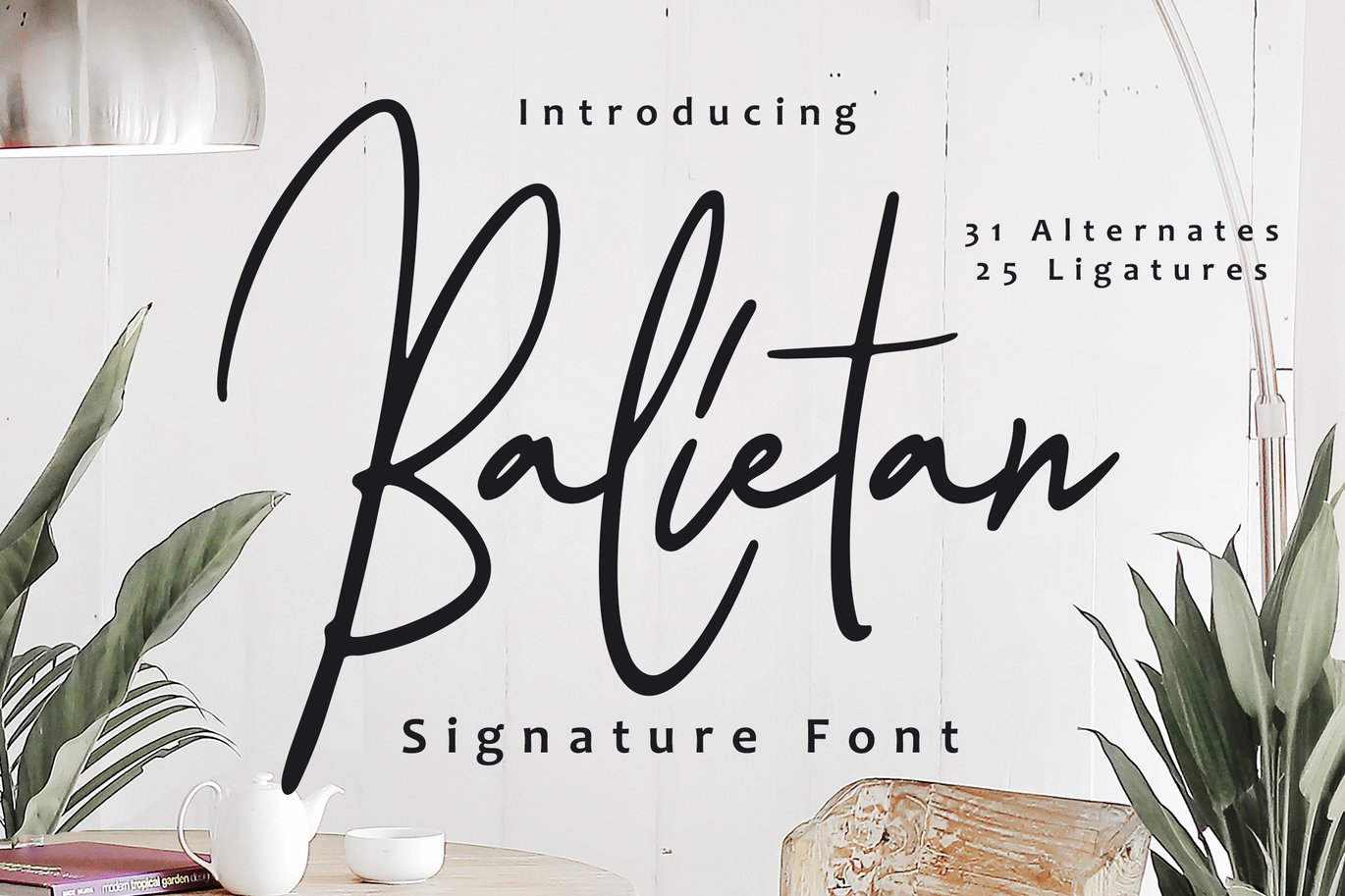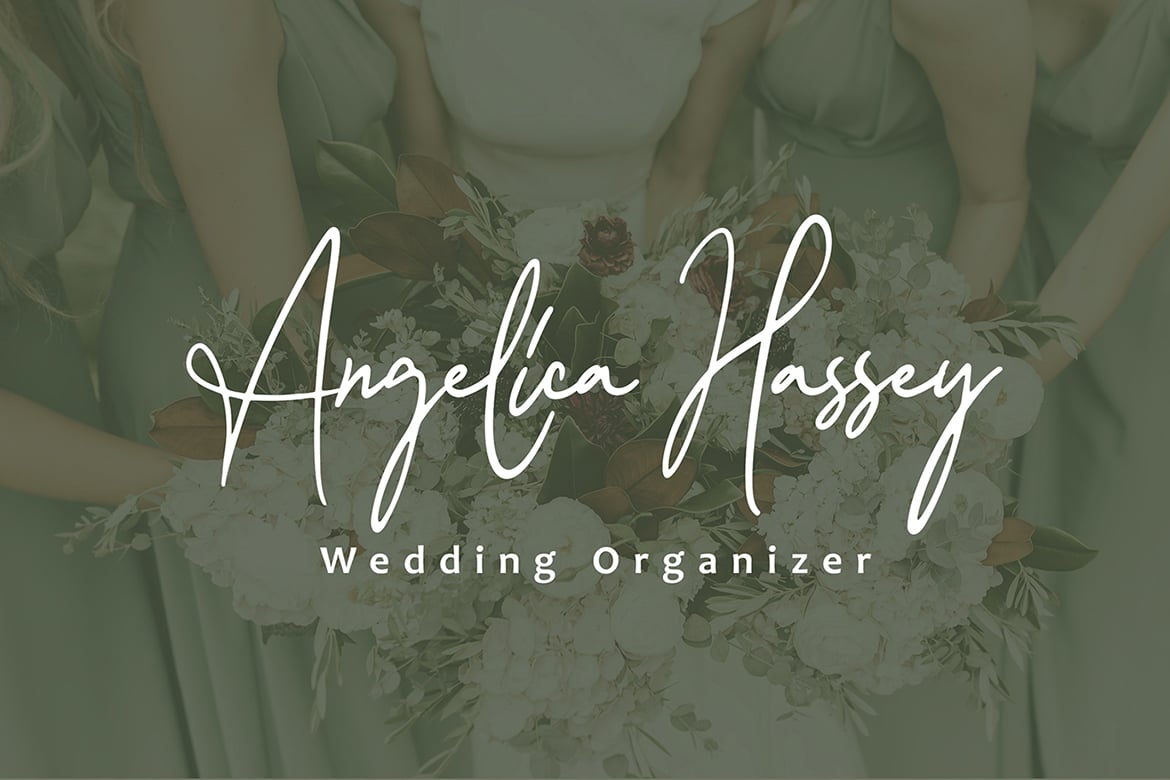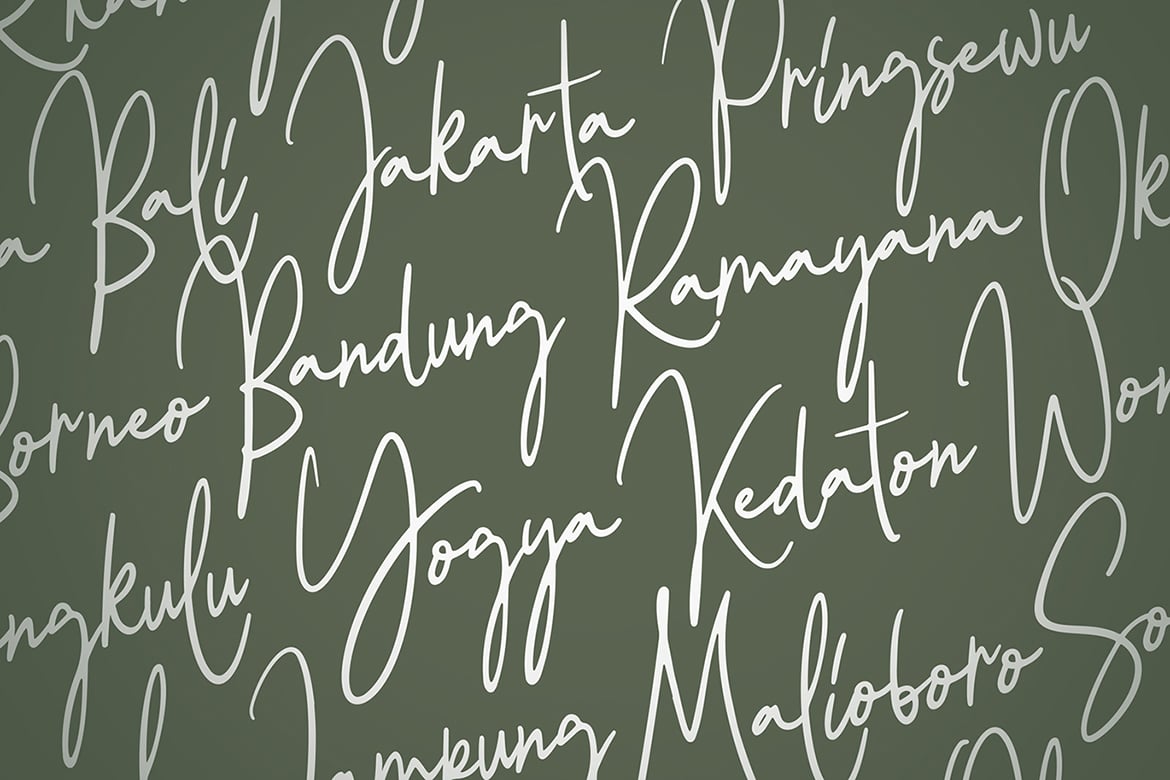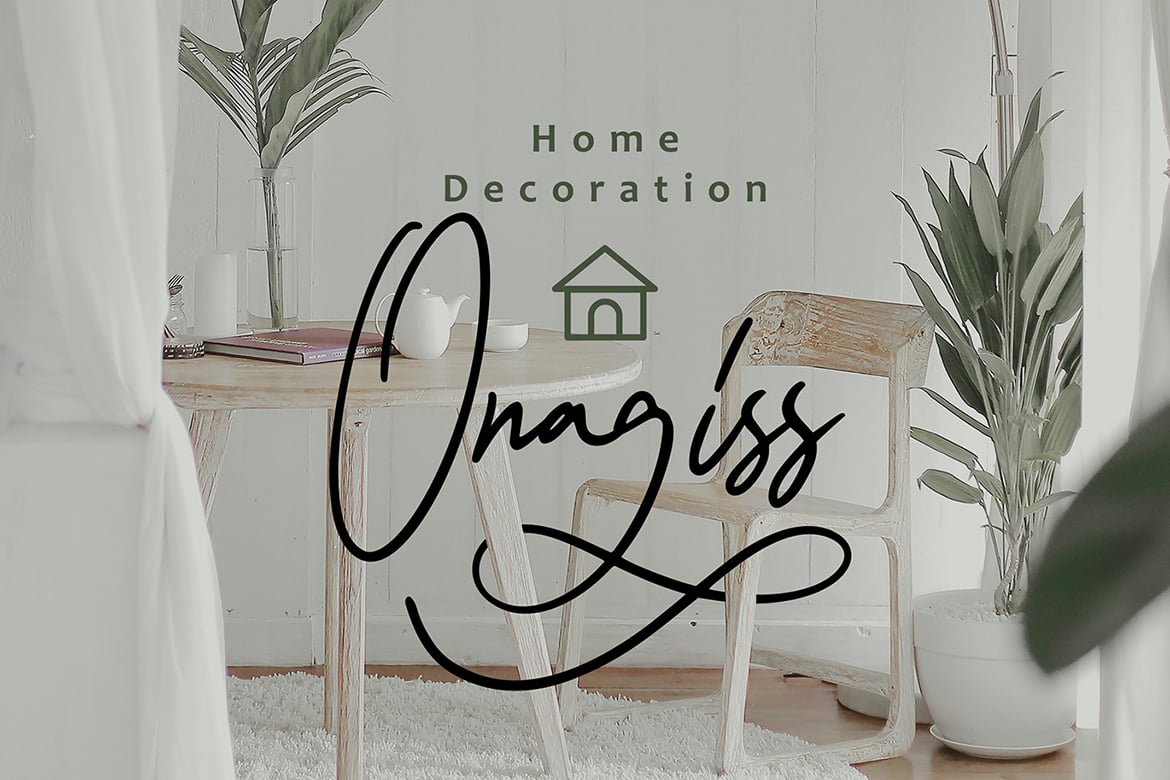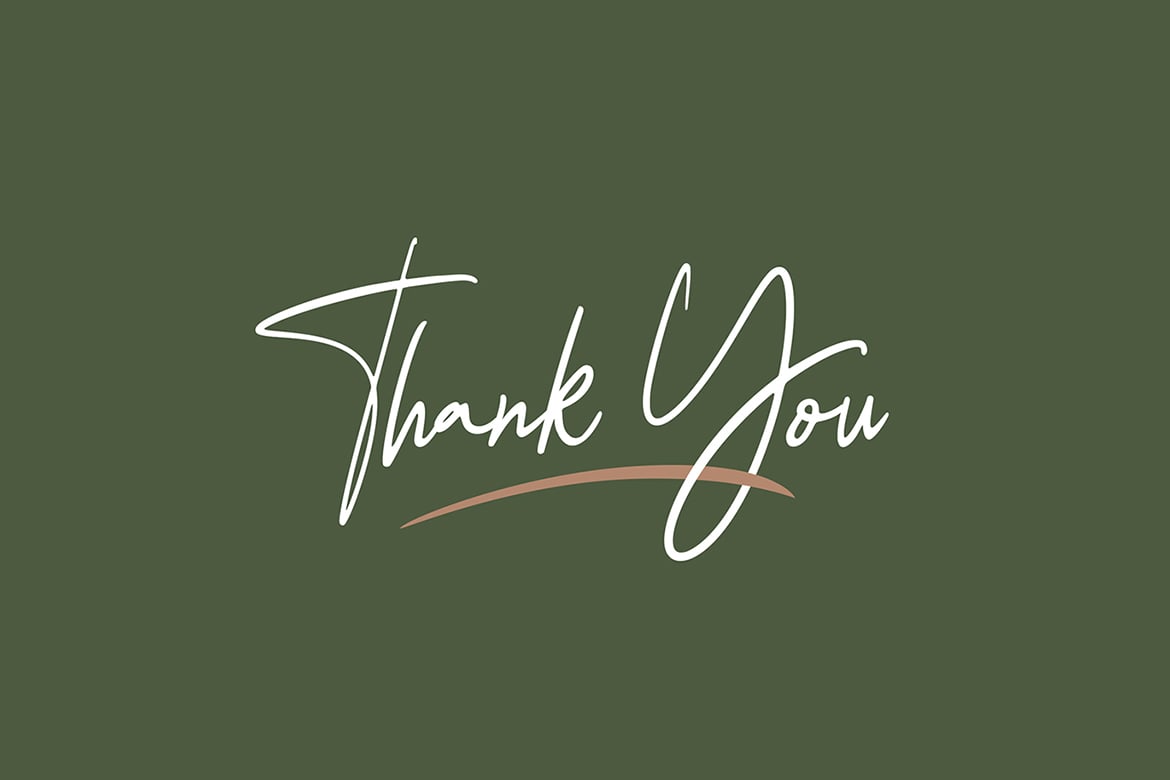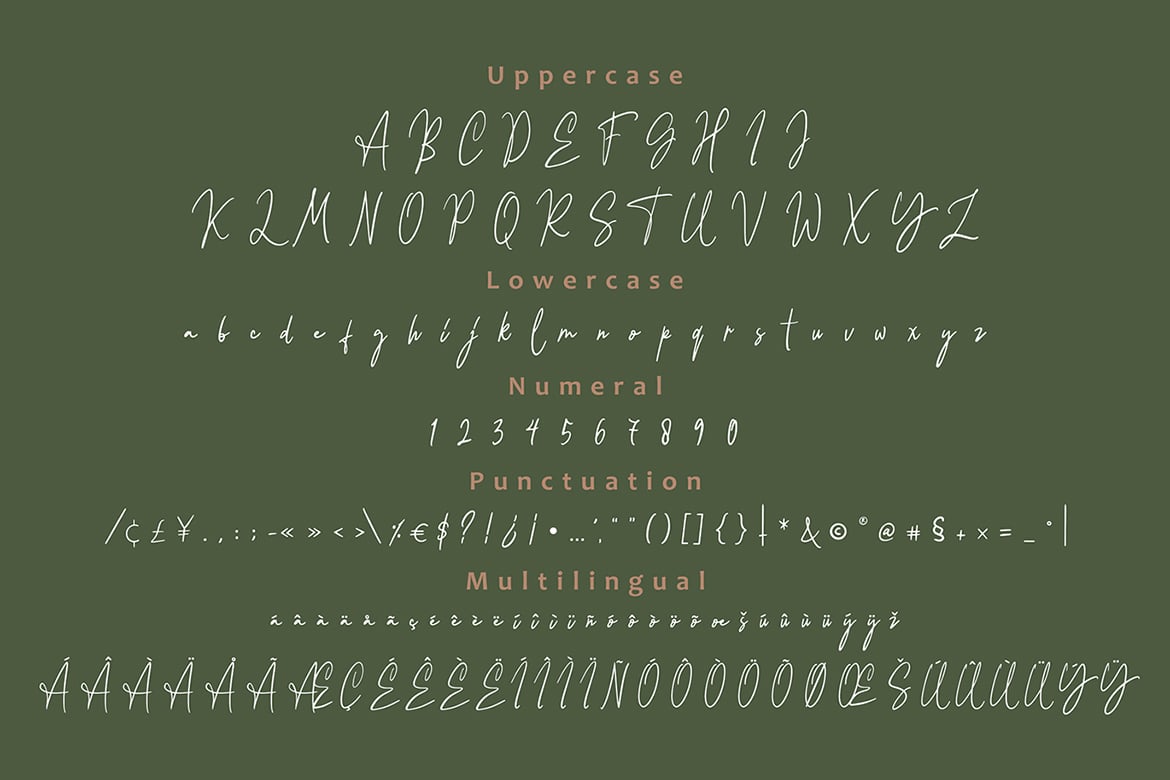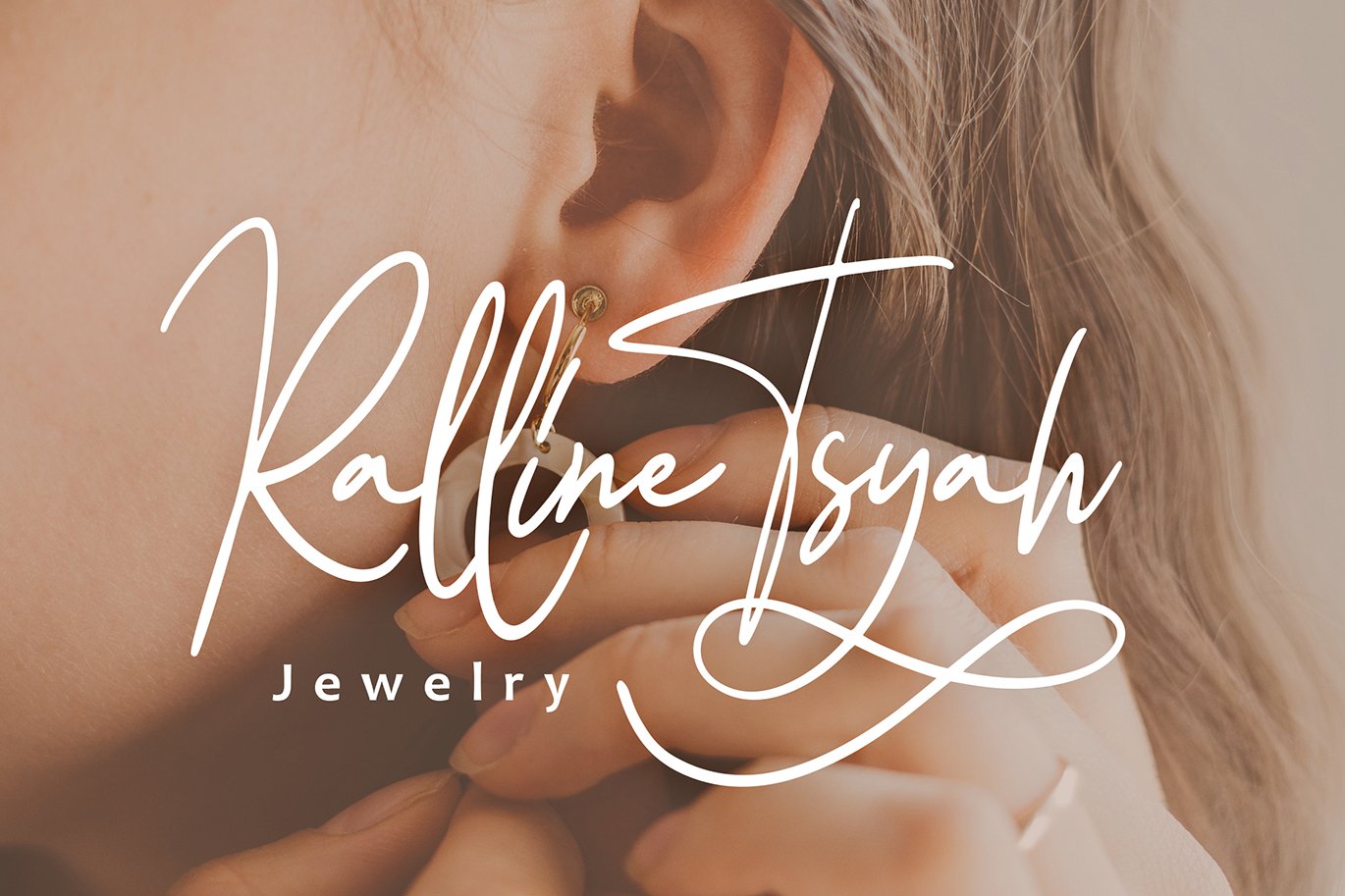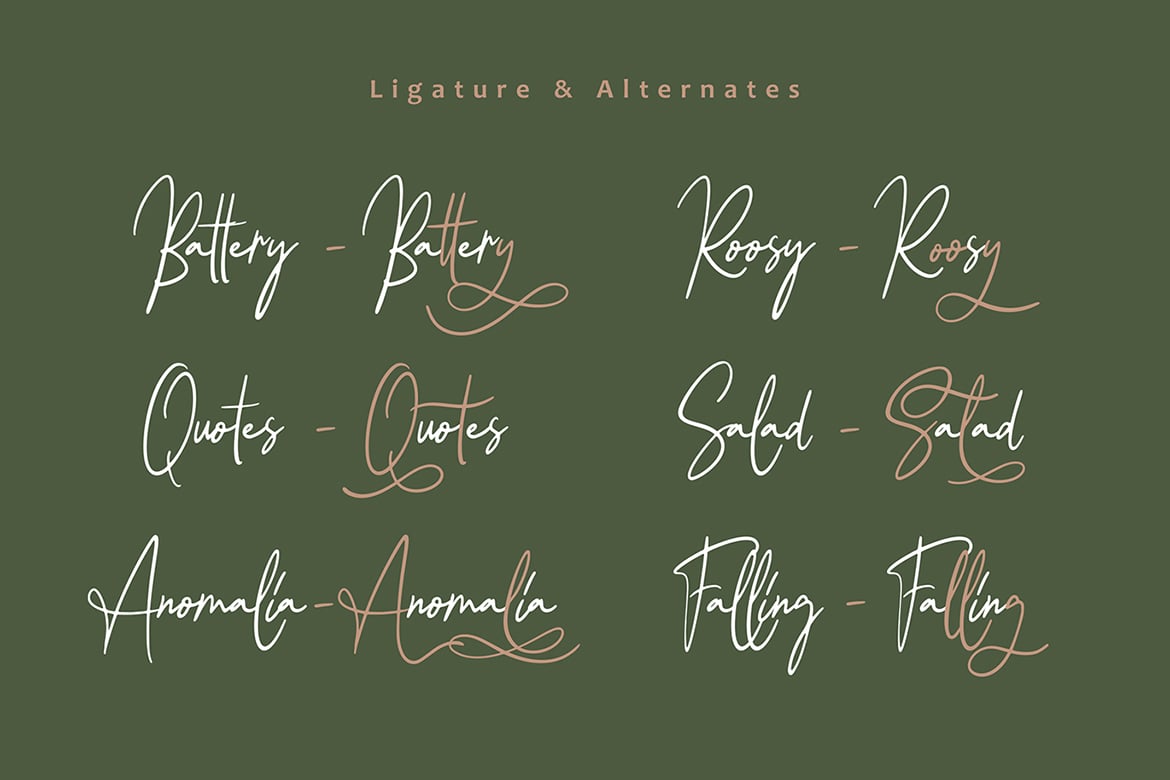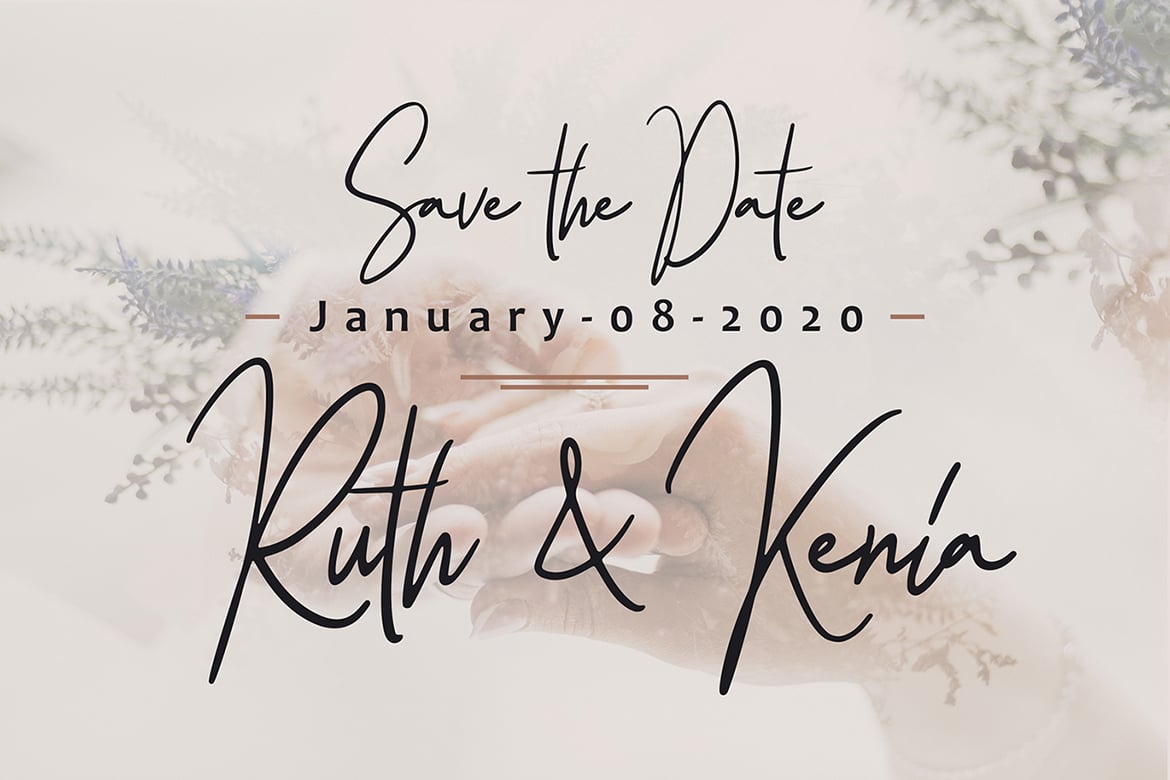
Balietan Signature Font
Balietan Signature Font can be used for various media like special events, Christmas, Valentine, invitation, packaging, poster, wedding, movie titles, book titles, social media, logos, branding, and others.
- Symbols
- Stylistic Set
- Multilanguage Support